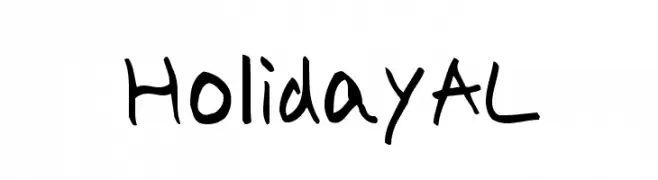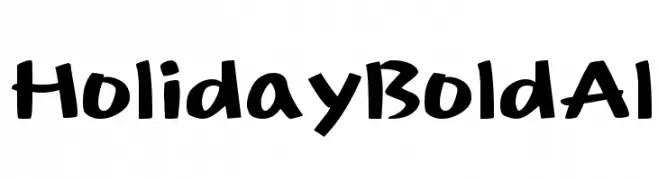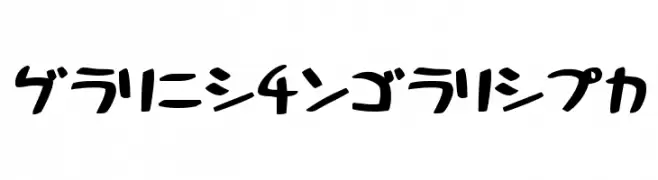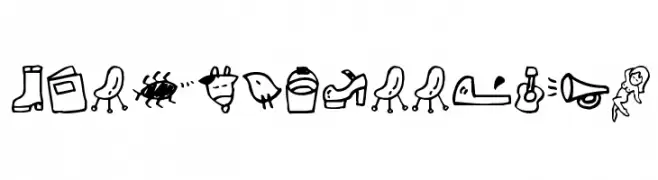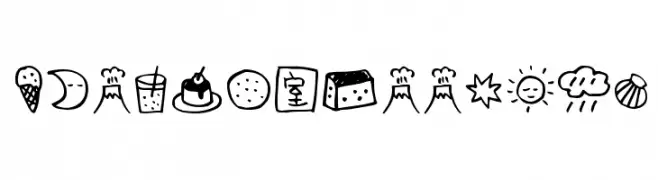
A playful, handwritten font with smooth, flowing strokes and a casual vibe.
A playful, bold handwritten font with a lively and friendly appearance.
A playful, bold font with rounded edges and a whimsical style.
A bold, playful handwritten font with thick, rounded strokes.
A playful, casual handwritten font with smooth curves and a friendly appearance.
Expressive, abstract handwritten script with decorative flair.
Hand-drawn doodle font with holiday and summer-themed icons.
Hand-drawn doodle font with playful food and object icons.
A playful, handwritten font with uneven strokes and a whimsical style.
A decorative and abstract script with bold, flowing symbols.